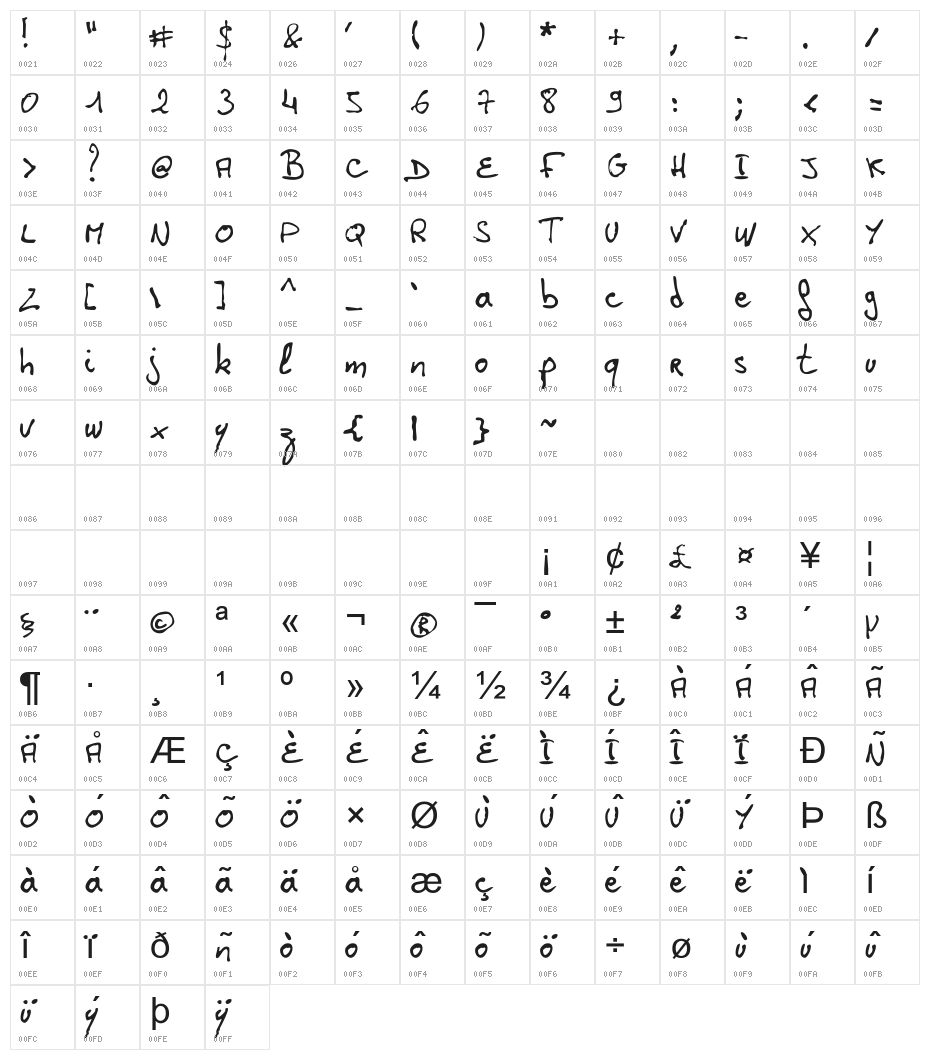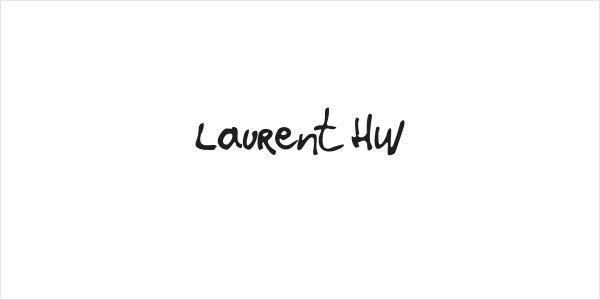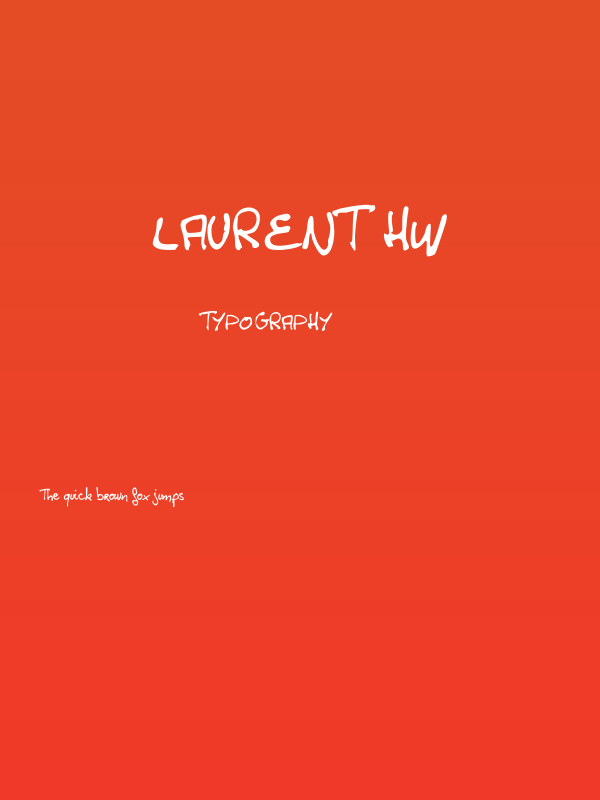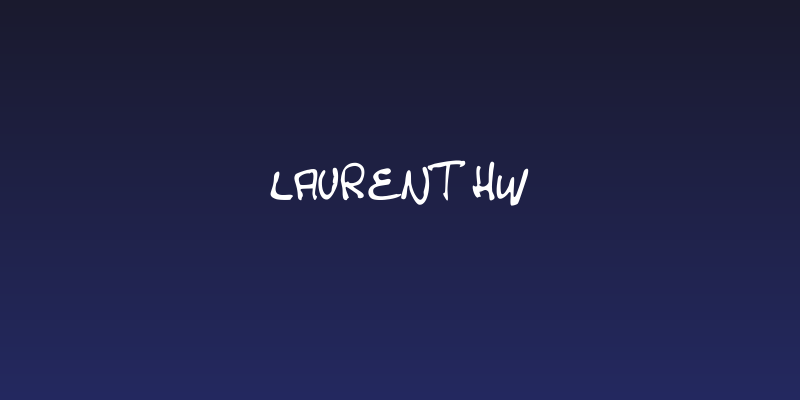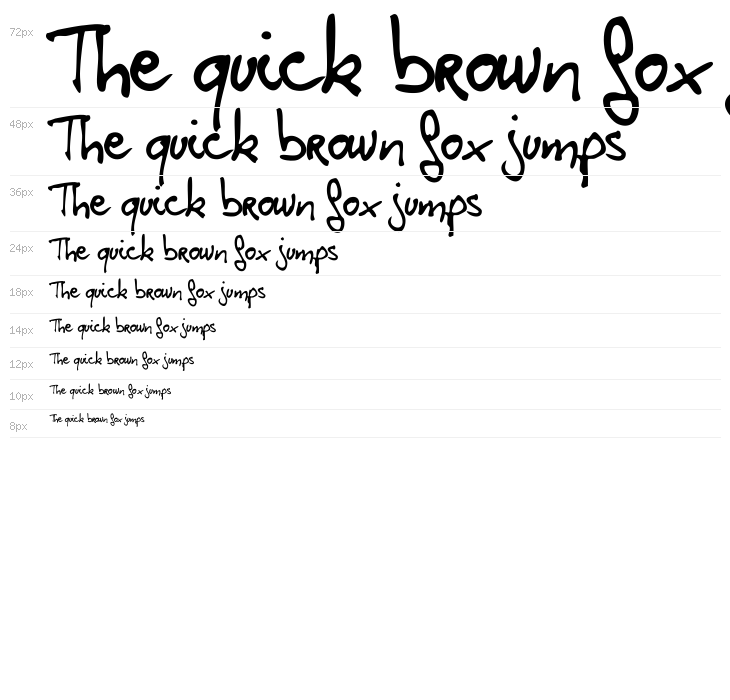
Laurent HW Font
Laurent HW Description
This font exhibits a lively and dynamic handwritten style, characterized by its fluid and organic strokes. The uppercase letters are bold and expressive, with a playful yet sophisticated flair. The lowercase letters maintain a consistent flow, enhancing the overall casual and approachable feel. Numbers and special characters are crafted with the same attention to detail, ensuring a cohesive look throughout. The font's unique personality makes it ideal for projects that require a personal touch, such as invitations, greeting cards, or branding materials. Its versatility allows it to stand out in both digital and print formats, making it a valuable addition to any designer's toolkit.
| Proposed Projects | Ideal for invitations, greeting cards, branding materials, and any project requiring a personal touch. |